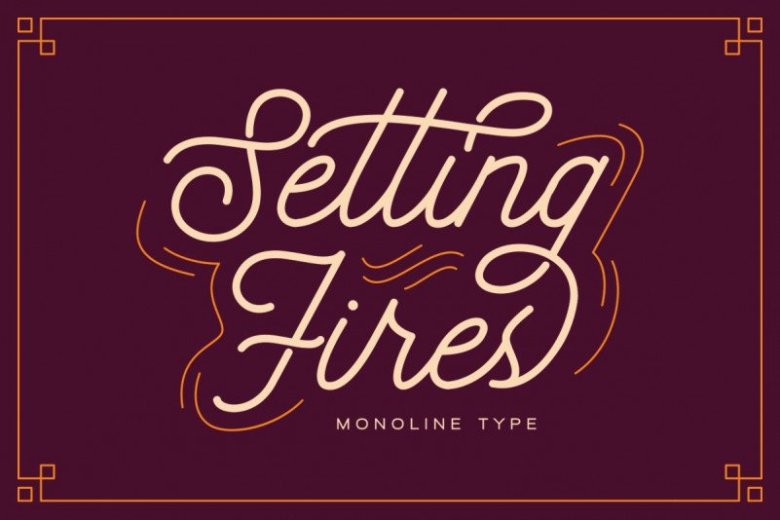
Seting Fires Monoline Font
Hi all…!! A handmande typeface with monoline type. This is a beautiful monoline retro script font which would work for a wide variety of purposes and projects. Introducing SetingFires Monoline Font. Setting Fires is a beautiful, sweet style, vintage monoline touch with movement and grace. This is unique script for you. This font contain ligatures, so many stylistic alternate, swash. This font is also support multi language.
Setting Fires has an elegant and stunning as a display which makes it perfecf for branding projects, logos, wedding designs, social media posts, advertisements, product packaging, product designs, label, photography, watermark, invitation, stationery and any projects that need handwriting taste.